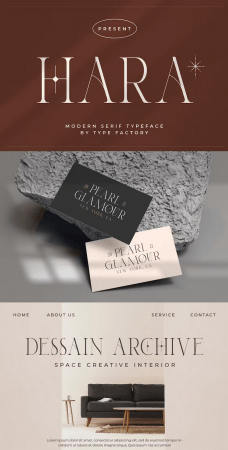
EE - Hara – Modern Serif Font Y5737W2
Hara is a modern serif font, that features a simple and minimalist feel. This font will brighten up each of your designs. The only limit is your imagination!